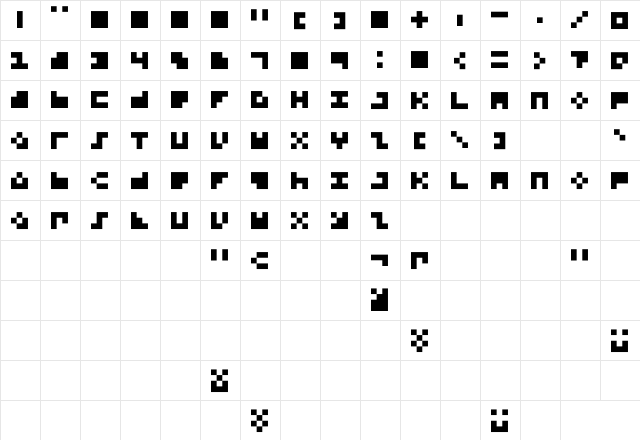
DS P9RMX Regular
Design Context for DS P9RMX Typeface
DS P9RMX takes a measured approach to typography — its balanced proportions and neutral character make it a reliable workhorse for both digital and print work.